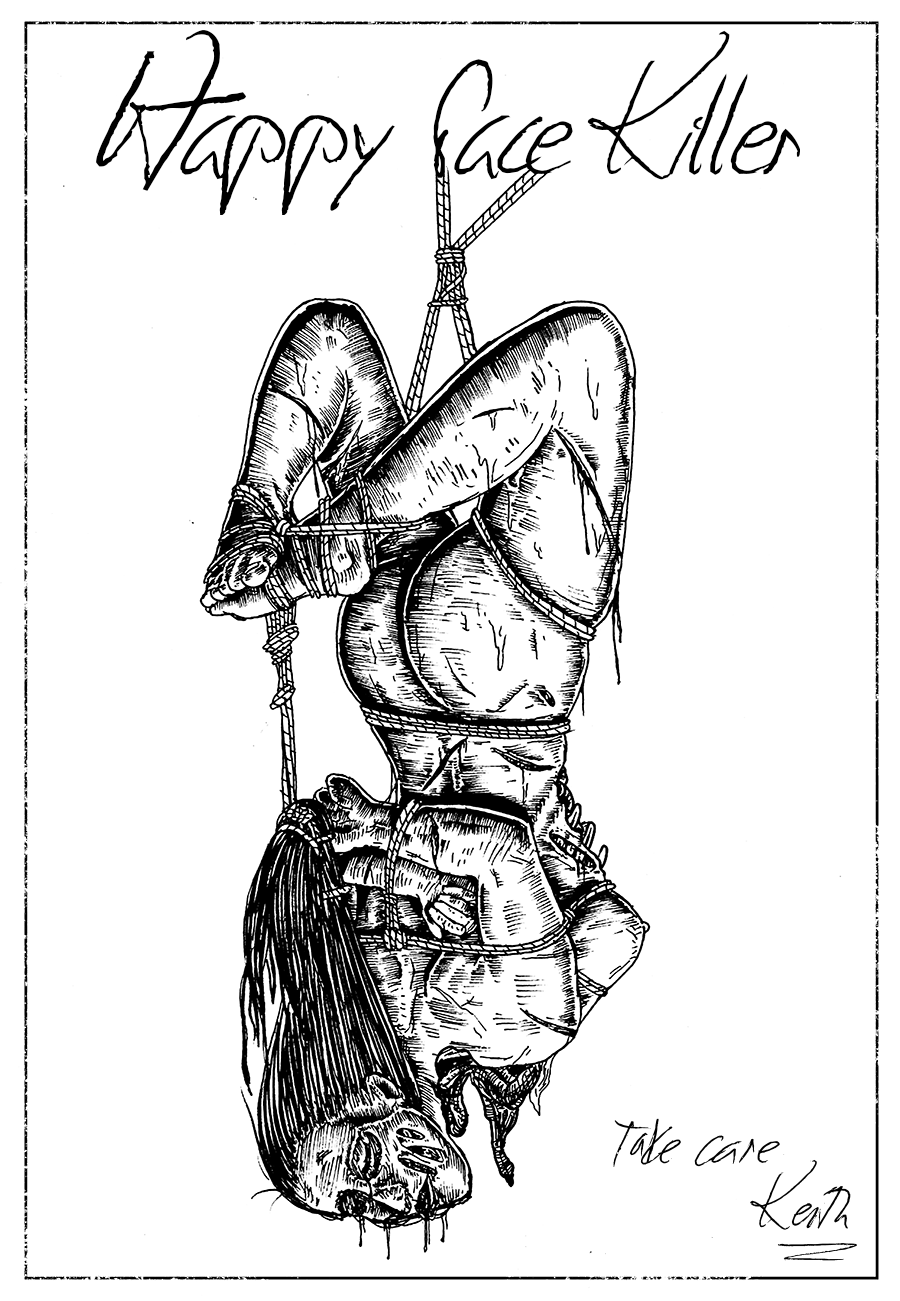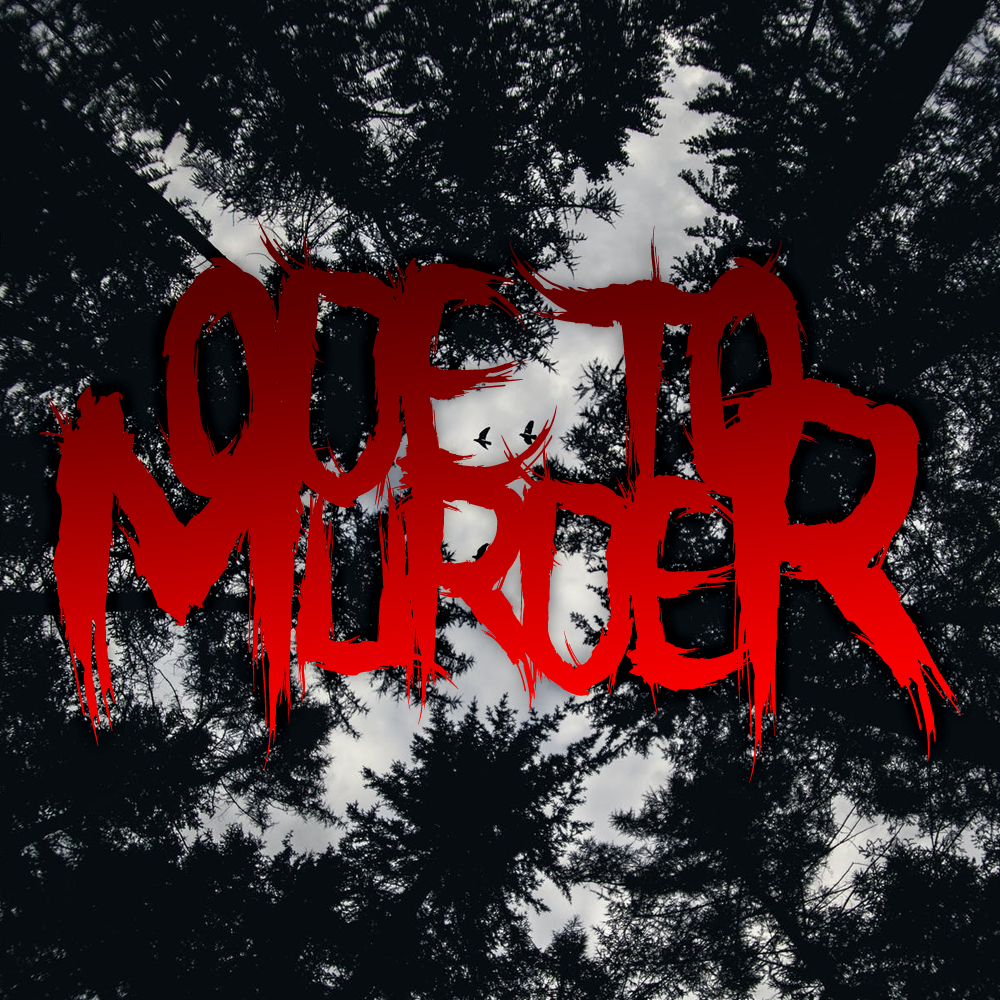
Halloween is just around the corner, and that means it's time to start thinking about how you're going to scare your friends and family. One of the best ways to do this is by using spooky fonts in your images. In this blog post, we will discuss some of the best fonts to use for Halloween images. We'll also give you a few tips on how to create scary Halloween graphics with these fonts. So, if you're looking to create some truly frightening visuals, read on!
Big and bold fonts are always a good choice for Halloween images. After all, you want your graphics to be as eye-catching as possible. A good font that is scary and easy to read is essential for Halloween graphics. Some of our favorite fonts for Halloween images include:
1. Burn The Witch Font
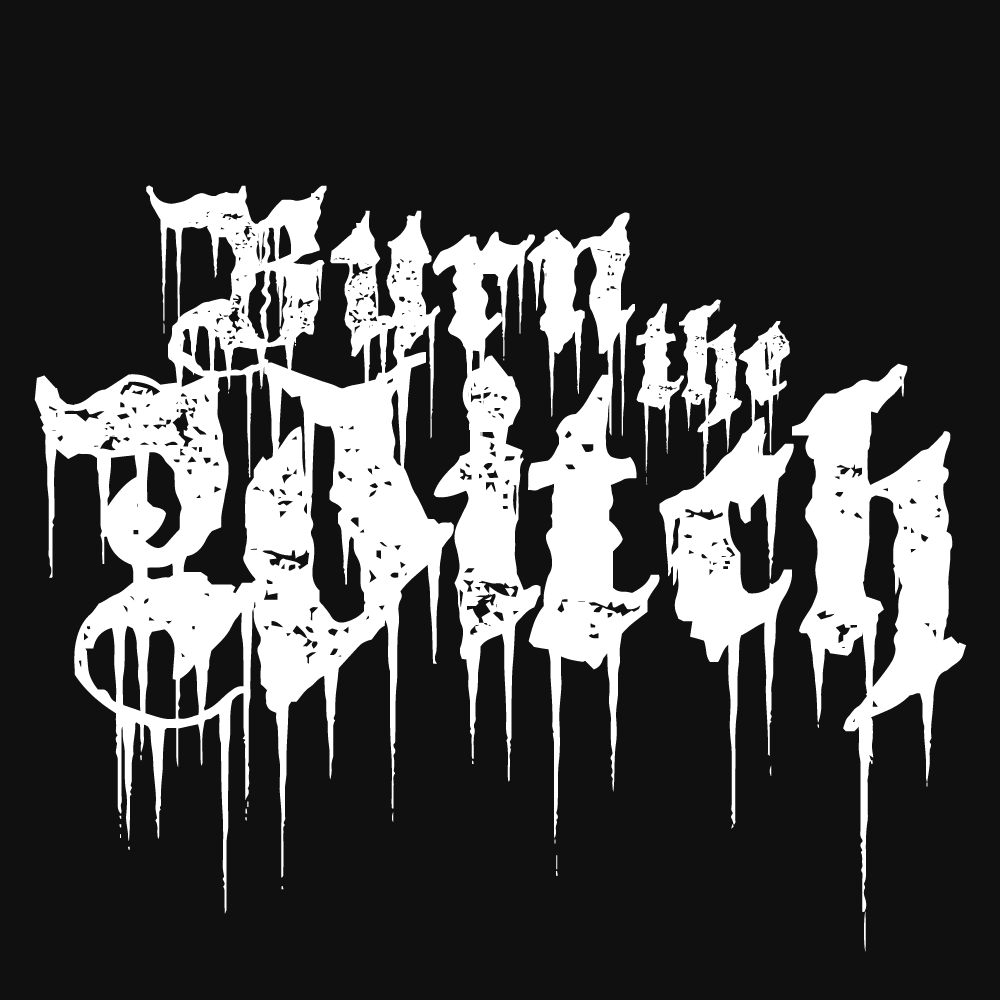
2. Death to Metal Font
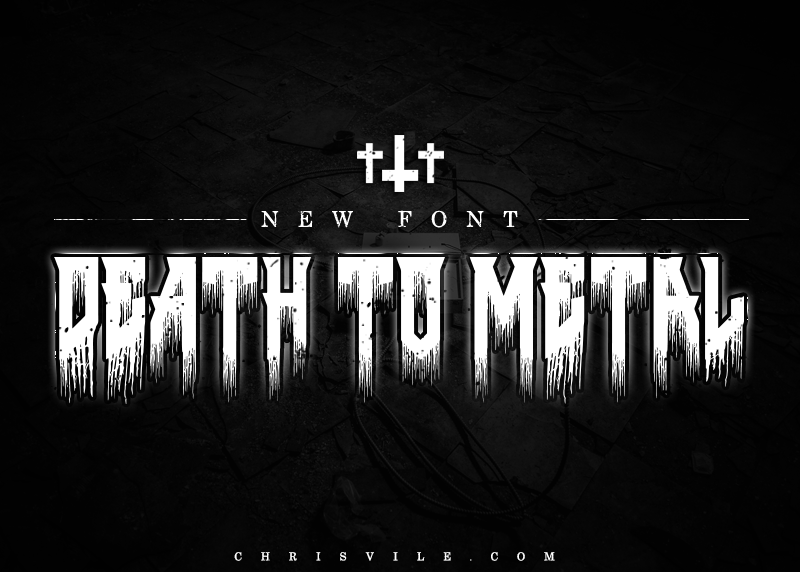
3. Sovereign Font
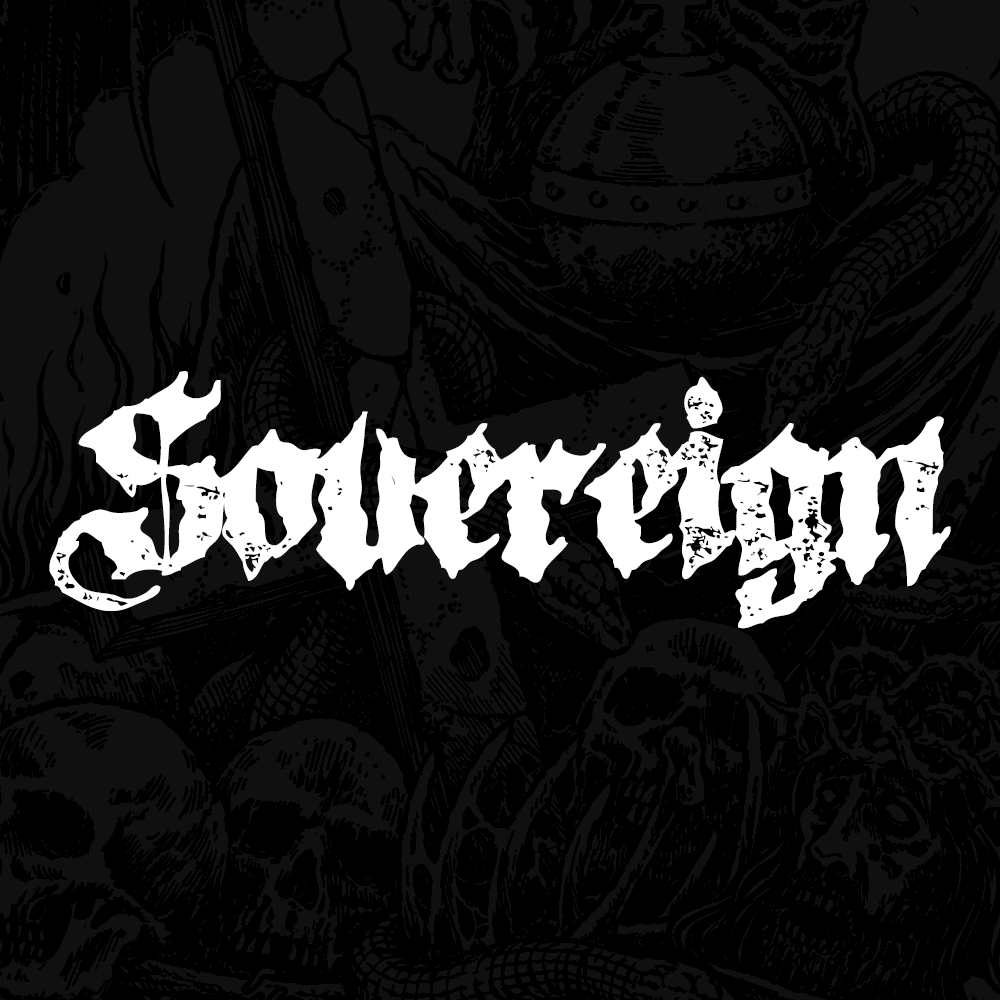
These fonts are perfect for creating Halloween invitations, posters, and even website headers. If you want to add a little extra fright to your Halloween graphics, try using a glow
Serial killer inspired fonts are always a good choice, as they exude a sense of menace. For example, the "Happy Face Killer" font is perfect for creating Halloween graphics that will send a chill down your viewer's spine. The font was created by the actual handwriting from Keith Jesperson, the real happy face killer responsible for 8 confirmed murders.
Another serial killer inspired font is Ode to Murder - can you guess the killers name? I'll give you a hint , their last name rhymes with "Trees." This font is perfect for Halloween graphics that are sure to give your viewers nightmares.